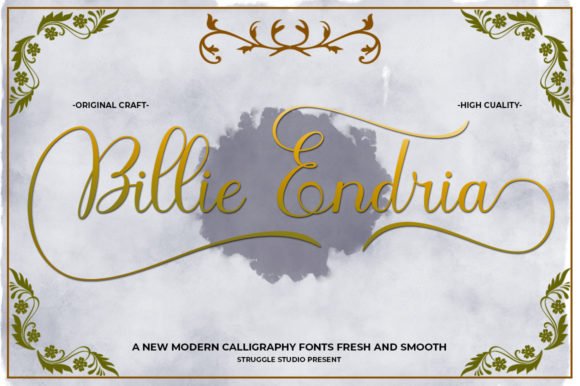
What Dreams Are Made Of: Billie Endria Font
I’ll never forget the moment I stumbled upon Billie Endria, a sophisticated and charming script that has become a staple in my design toolkit. I was working on a branding project for a luxury fashion client, and I was struggling to find the perfect font to capture the essence of their high-end aesthetic. The brief required a font that exuded elegance, sophistication, and a touch of playfulness. After hours of scouring font libraries and testing various options, I finally stumbled upon Billie Endria, and it was love at first sight ✨.
So, what makes Billie Endria so special? Let’s dive into the good stuff:
• ✨ Elegant and sophisticated: Billie Endria boasts beautiful, flowing script lines that scream luxury and refinement.
• ✅ Highly versatile: This font adapts seamlessly to various design applications, from branding and packaging to digital media and print.
• 💫 Unique character: Billie Endria’s distinctive personality shines through in its subtle quirks and charming alternates.
Of course, no font is perfect, and Billie Endria has a few minor quirks to consider:
• ⚠️ Limited use in body text: While Billie Endria is stunning as a display font, it may not be the best choice for lengthy paragraphs due to its script nature.
• 🤔 Occasional kerning issues: As with any font, you may need to adjust kerning in certain situations to achieve optimal results.
According to its designer, Billie Endria was inspired by the classic script fonts of the 1920s, with a modern twist. The goal was to create a font that exudes sophistication and charm, while still feeling approachable and friendly. The designer’s passion for typography and attention to detail are evident in every stroke of this stunning font.
What makes Billie Endria so special? Billie Endria’s unique blend of elegance, sophistication, and playfulness makes it a standout font for various design applications.
Is Billie Endria suitable for body text? While Billie Endria is stunning as a display font, it may not be the best choice for lengthy paragraphs due to its script nature.